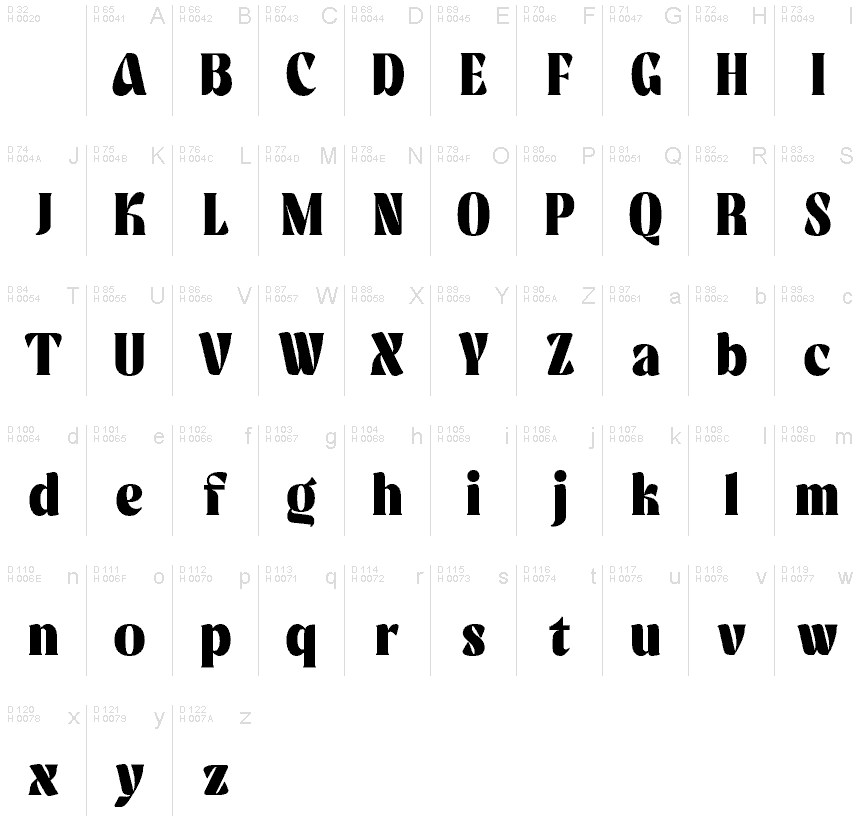
CS Alston Demo Regular
CS Alston font by Craft Supply Co. is a vintage serif with bold characters, traditional charm, and ornamental flair that gives it a classic and elegant look. The versatile typeface has a vintage appeal to it but looks amazing in modern projects nonetheless.